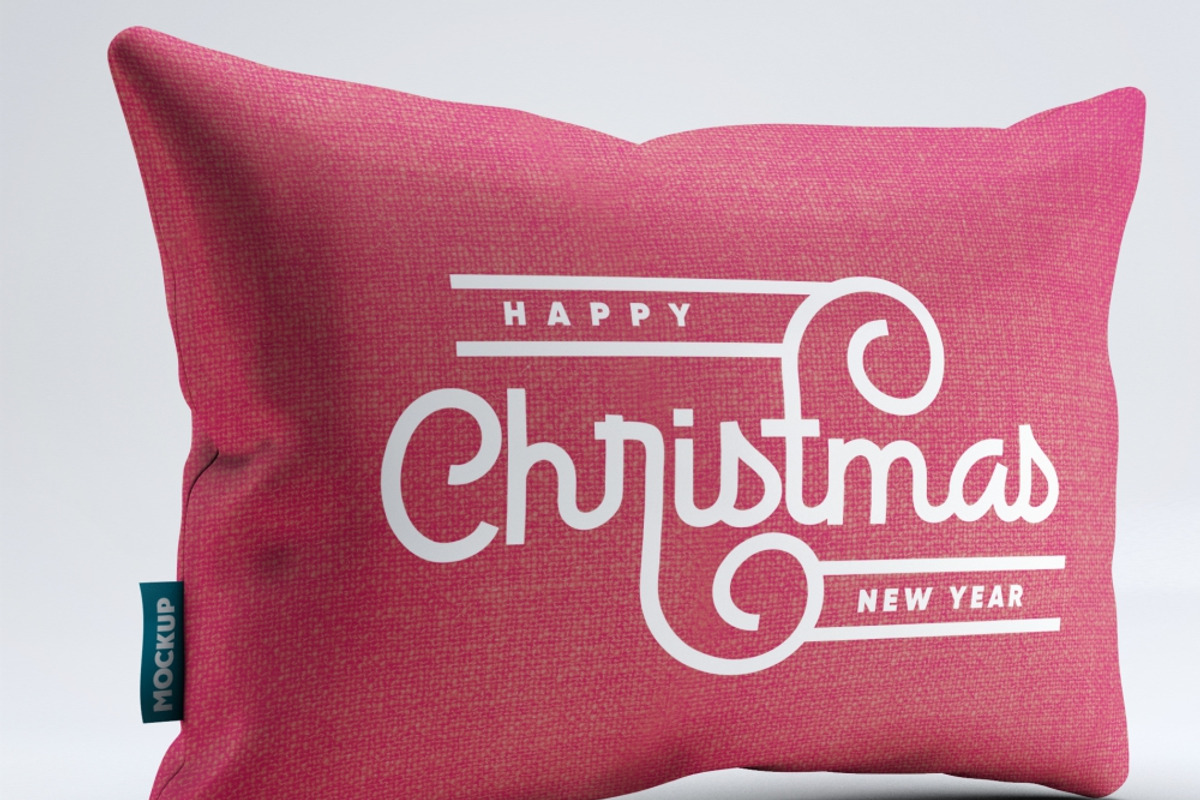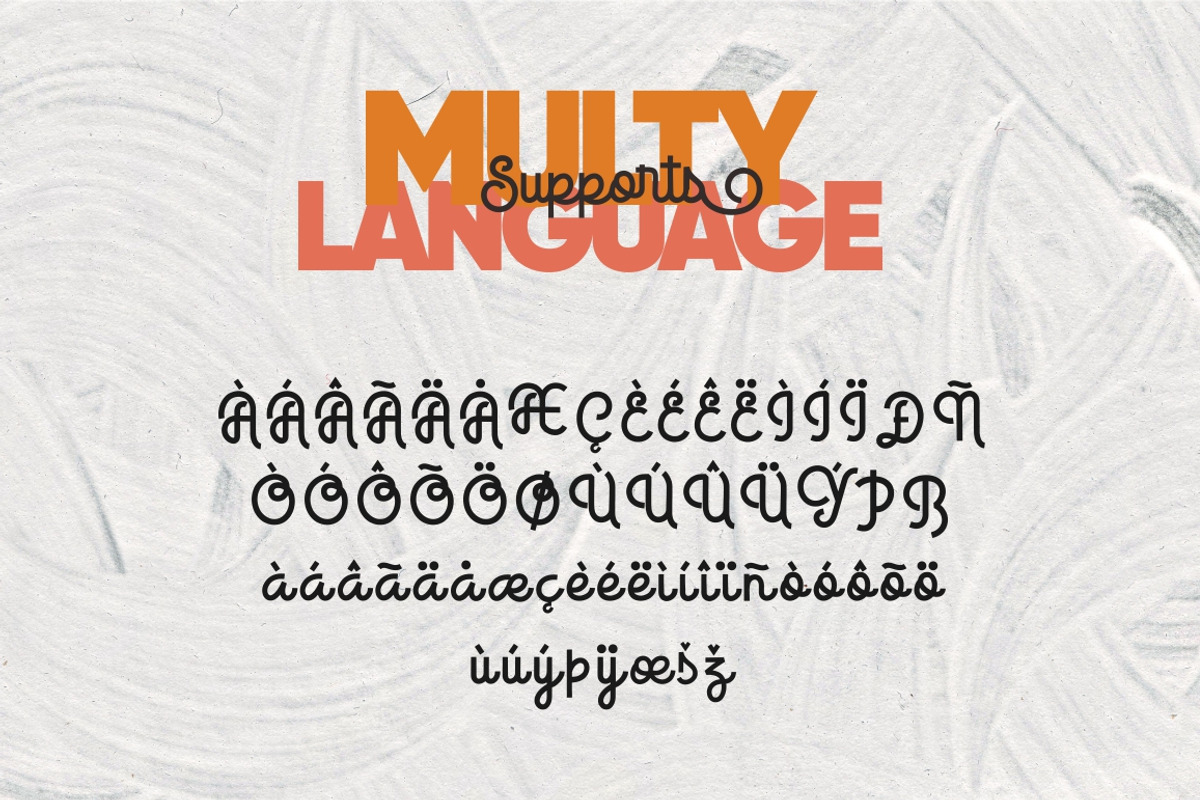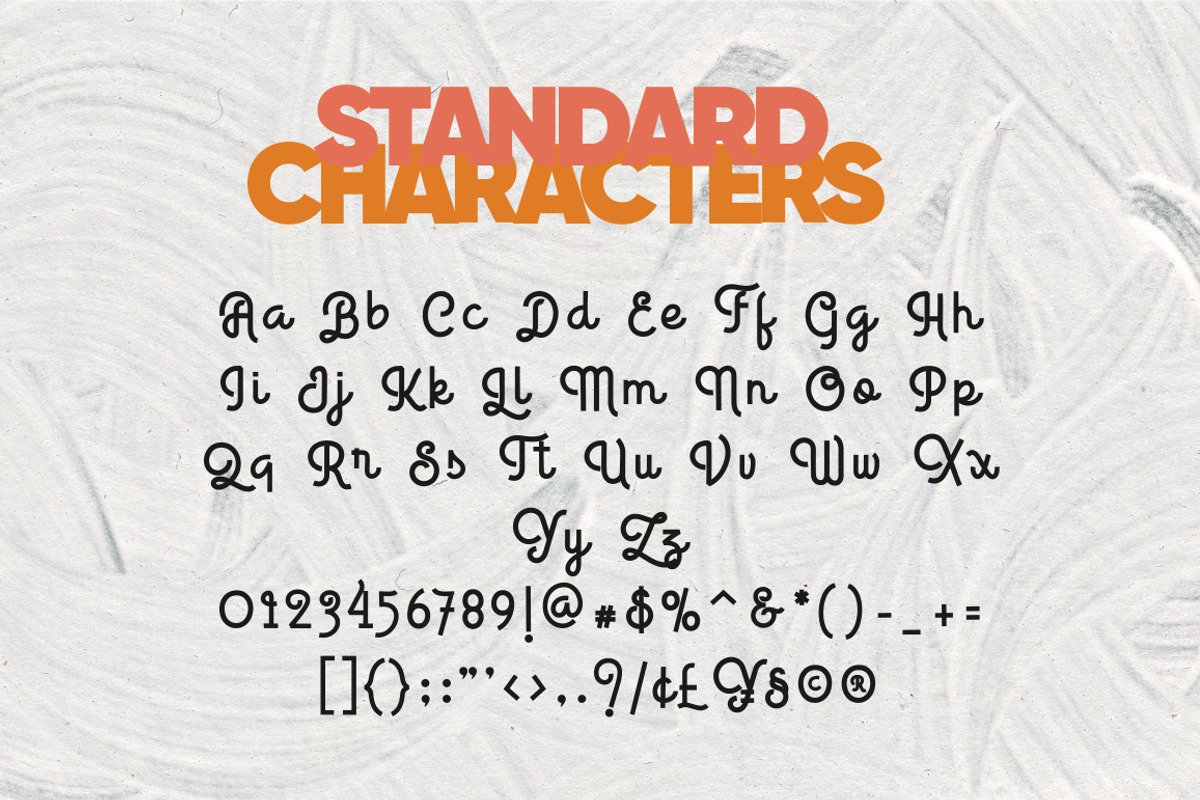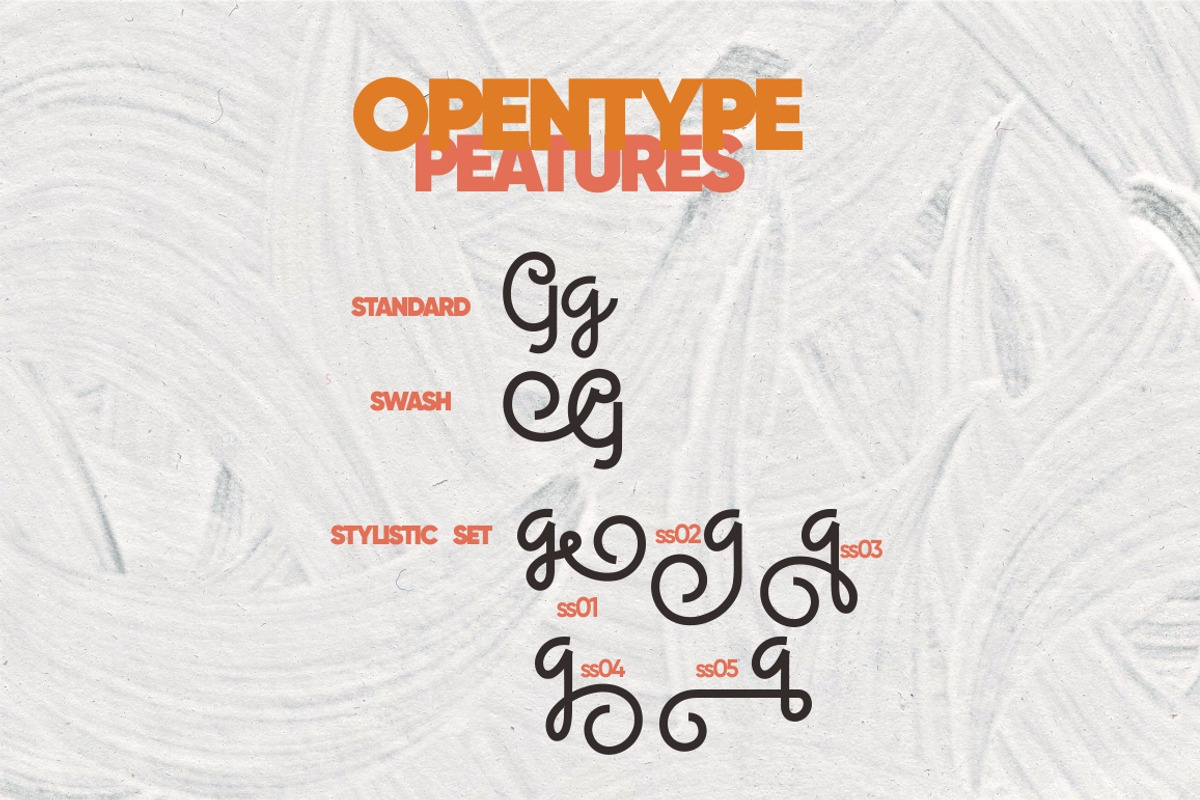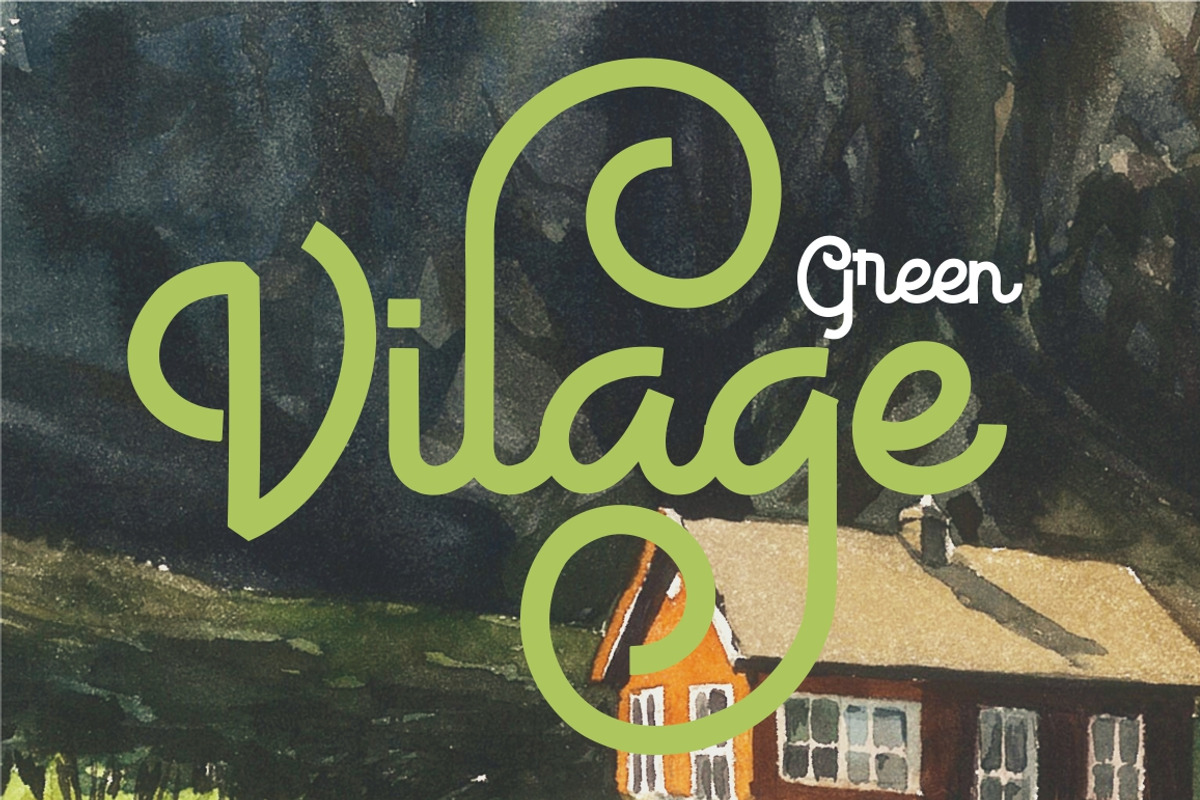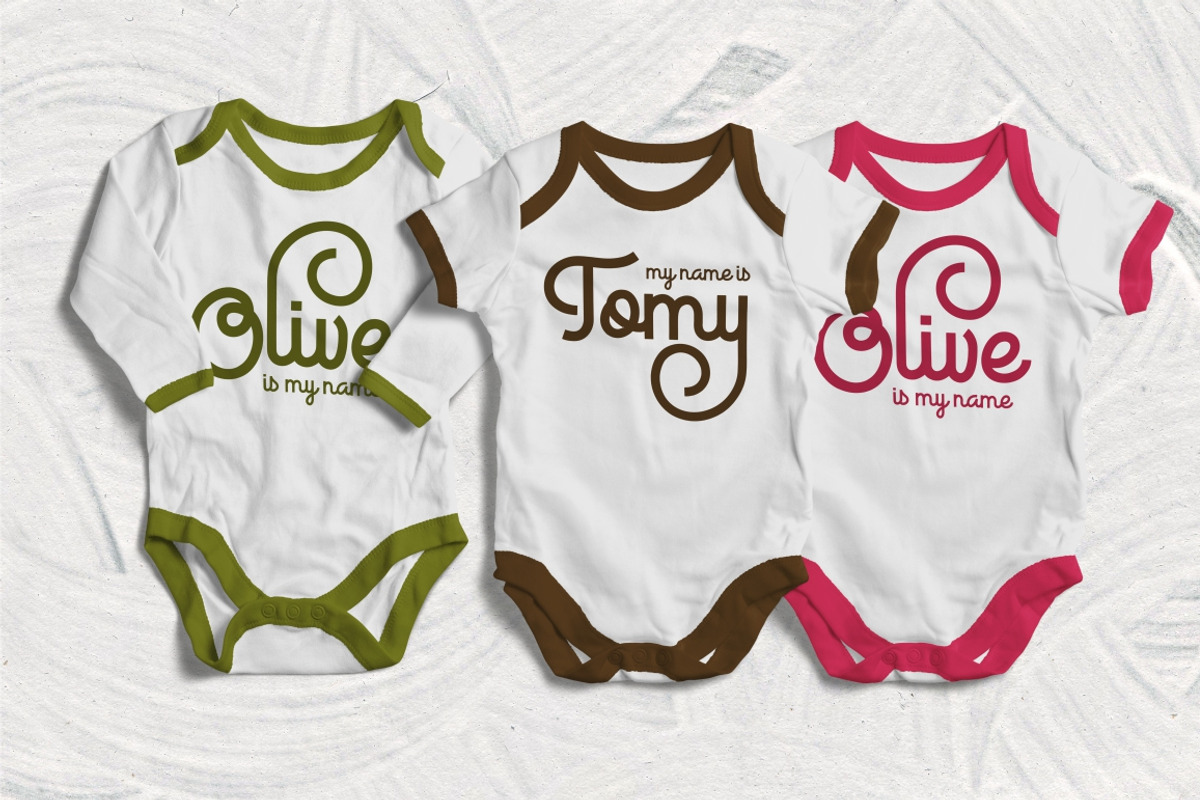
Proudly presents our latest product 'Candys Font! both of these font consist with 2 different style ‘Legular and Bold’ . These two lovely fonts would be perfect to combine in your design. with cute style. The fonts are great for product logo,wedding card logo, clothing brand logo design and much more.
Candys Font equipped with :
Stylistic Set01 - Stylistic Set09
- Candys Font equipped with : Uppercase,lowercase,numeral,punctuation & Symbol Stylistic alternates Stylistic Set01 - Stylistic Set09 Swash Li